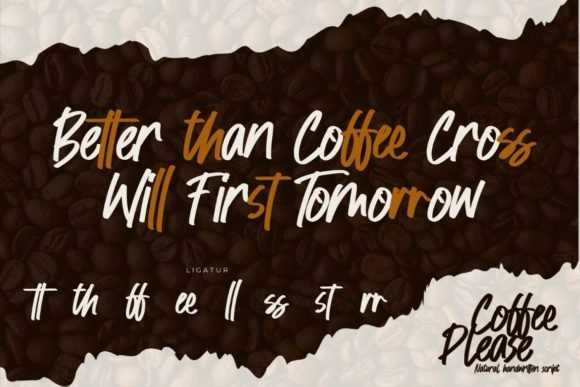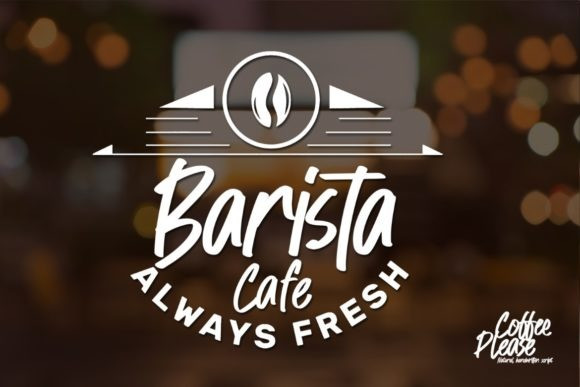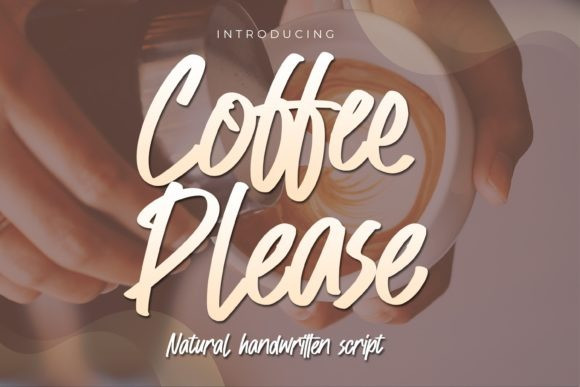
Coffee Please Font
Coffee Please Script Font is a stunning handwritten font with a natural style and dramatic movement. Crafted manually with love and passion, this font is great for your next creative project!